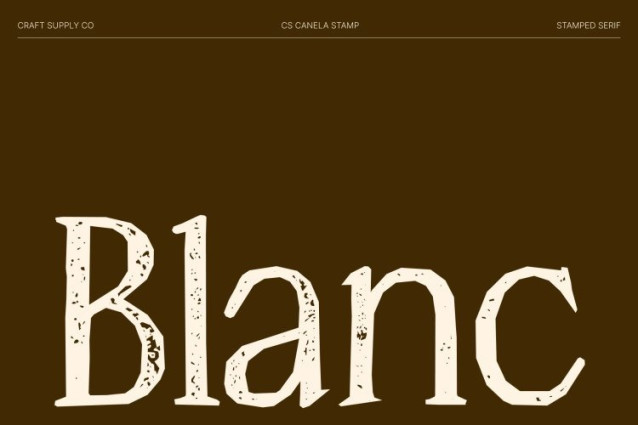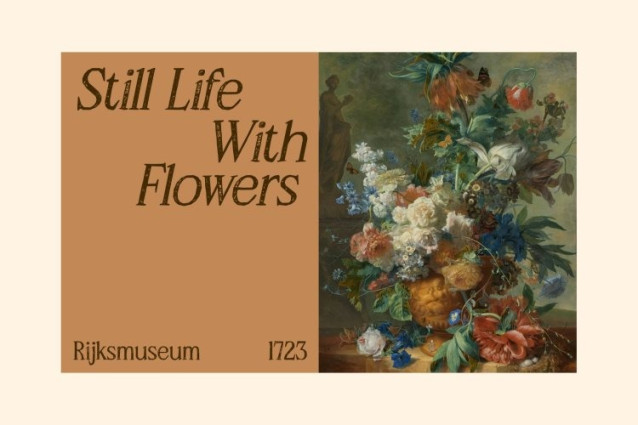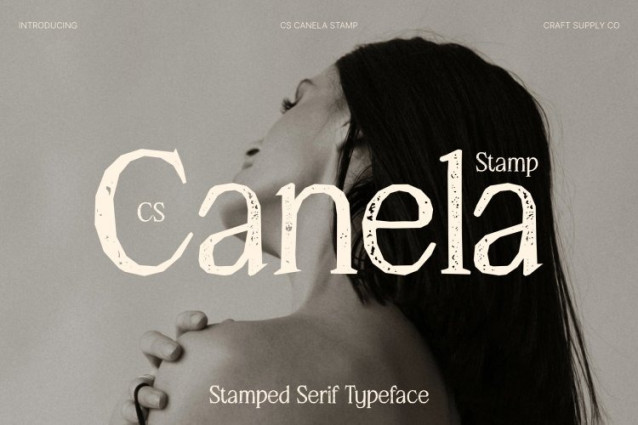
CS Canela Stamp Font
CS Canela Stamp Font is an elegant serif font designed with clean, slender letterforms that convey refinement and confidence. Enhanced with a subtle stamp effect, the typeface gains a distinctive vintage texture that introduces artistic depth and character. The combination of precise structure and gently distressed details creates a harmonious balance between modern elegance and handcrafted charm.
Modern Sophistication with Timeless Appeal
Rooted in classic serif principles, this font maintains a timeless design language while embracing contemporary refinement. Its slim strokes and balanced proportions ensure clarity and grace, while the stamp texture adds subtle irregularities that evoke the look of traditional printed materials.
Refined Structure with Textured Personality
The slender lines and smooth rhythm of this font create an elegant flow across layouts. The vintage stamp effect introduces delicate worn edges and ink-like textures, enriching the letterforms without overwhelming their refined appearance. This subtle artistic treatment gives the font a unique visual presence while preserving its sophisticated readability.
Perfect for Fashion, Editorial, and Luxury Branding
This is ideal for fashion campaigns, editorial layouts, posters, and luxury brand identities. Its graceful serif forms combined with vintage-inspired texture create typography that feels poised, stylish, and memorable. Whether used in headlines, titles, or premium branding, the font delivers a refined yet expressive character that elevates any design.